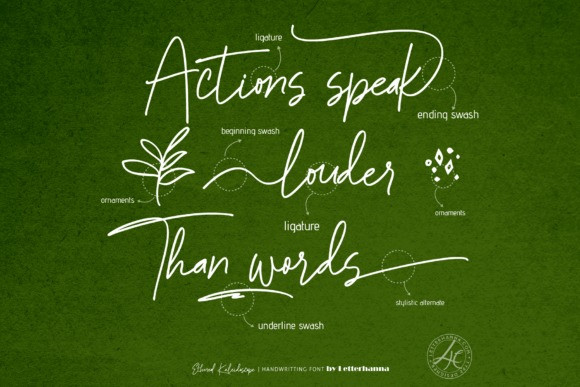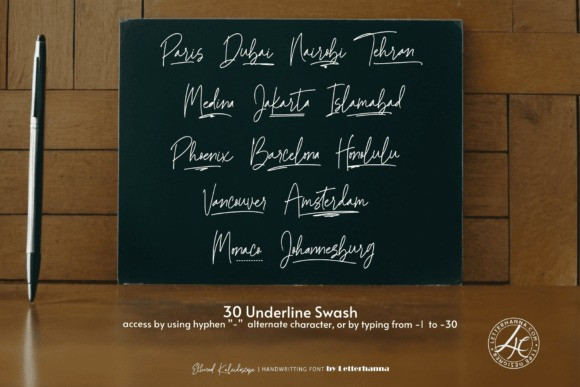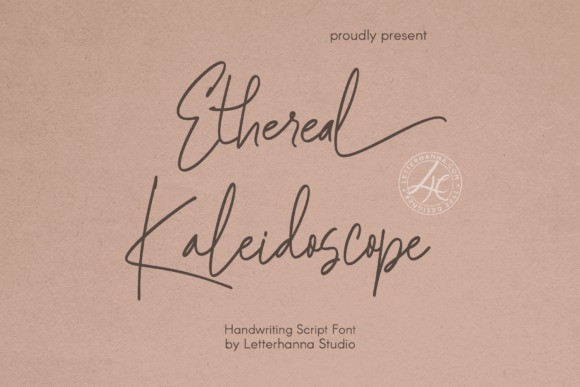
Ethereal Kaleidoscope Handwriting Font
Ethereal Kaleidoscope Handwriting Font a new typeface that captures the essence of fleeting beauty and mesmerizing transformation. Inspired by the ever-shifting patterns of a kaleidoscope, this font boasts an enchanting flow and delicate details, perfect for projects that demand a touch of the otherworldly.